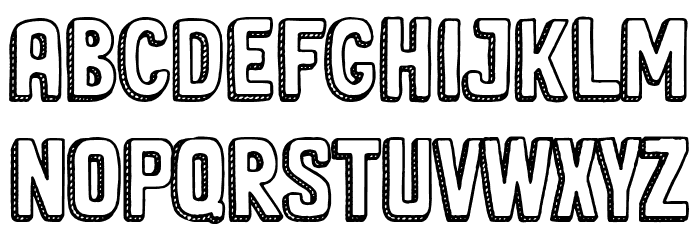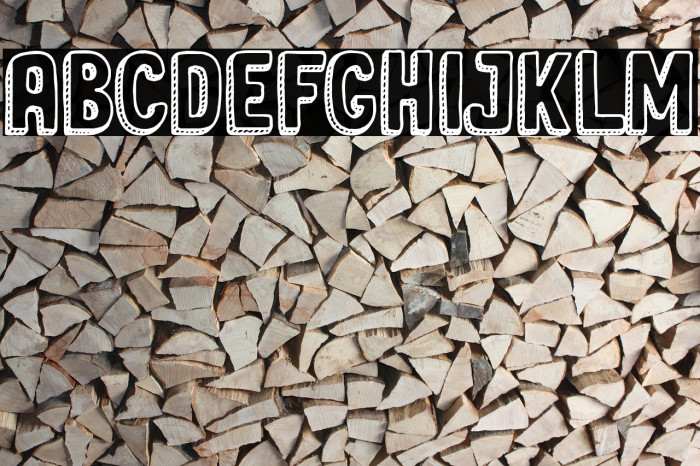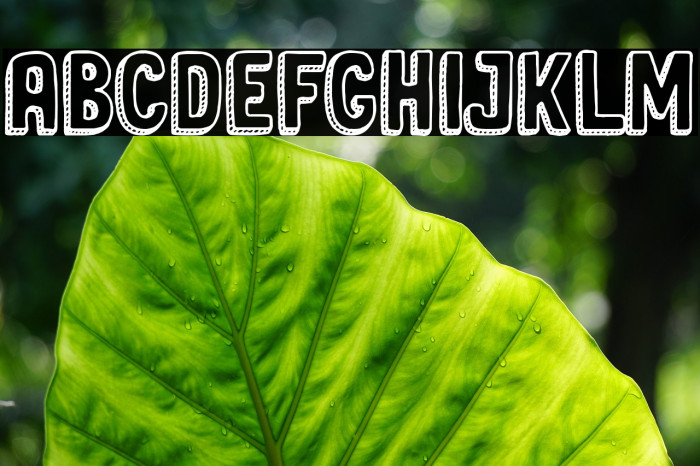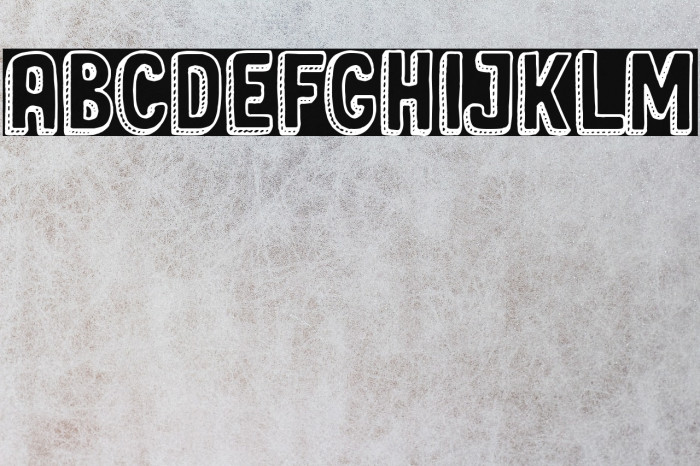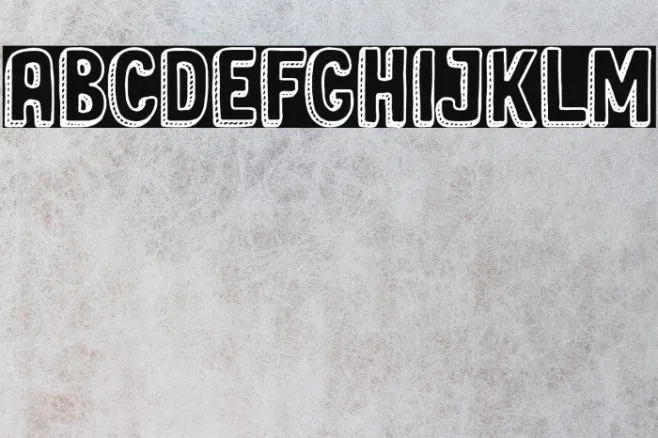
Sweet Cake Font
This playful and decorative font features bold, rounded letters with a dotted outline, giving it a fun and whimsical appearance. The characters are uniformly thick, with a consistent stroke width that adds to its boldness. The uppercase and lowercase letters maintain a cohesive style, making it suitable for eye-catching designs. The numbers and special characters follow the same playful aesthetic, ensuring a harmonious look across all elements. Its unique style makes it ideal for projects that require a touch of creativity and fun.
A playful, bold font with dotted outlines and a whimsical style.
- Proposed Projects: Ideal for children's books, party invitations, playful branding, and creative posters.
- Overall Style: Playful, Whimsical